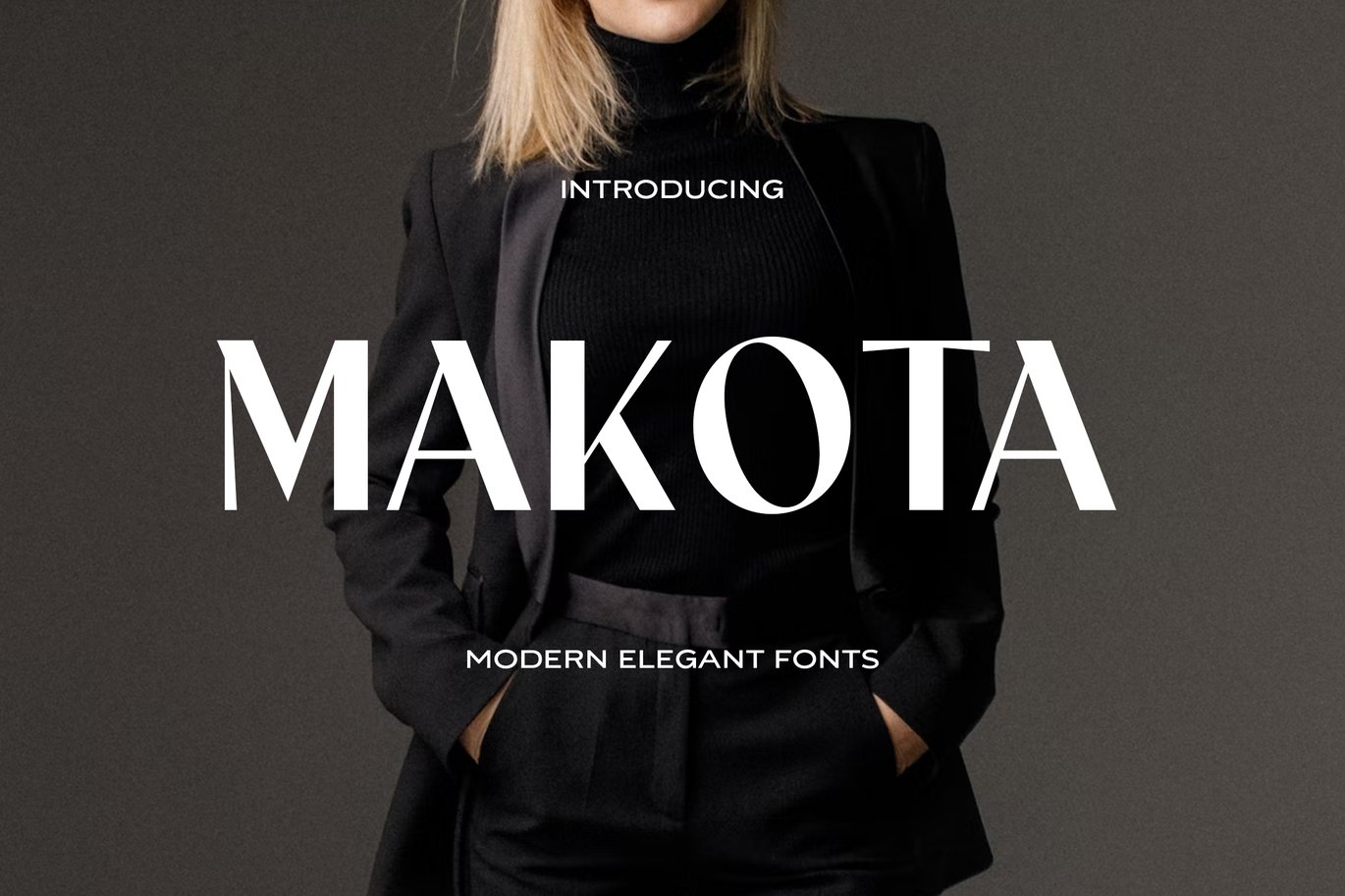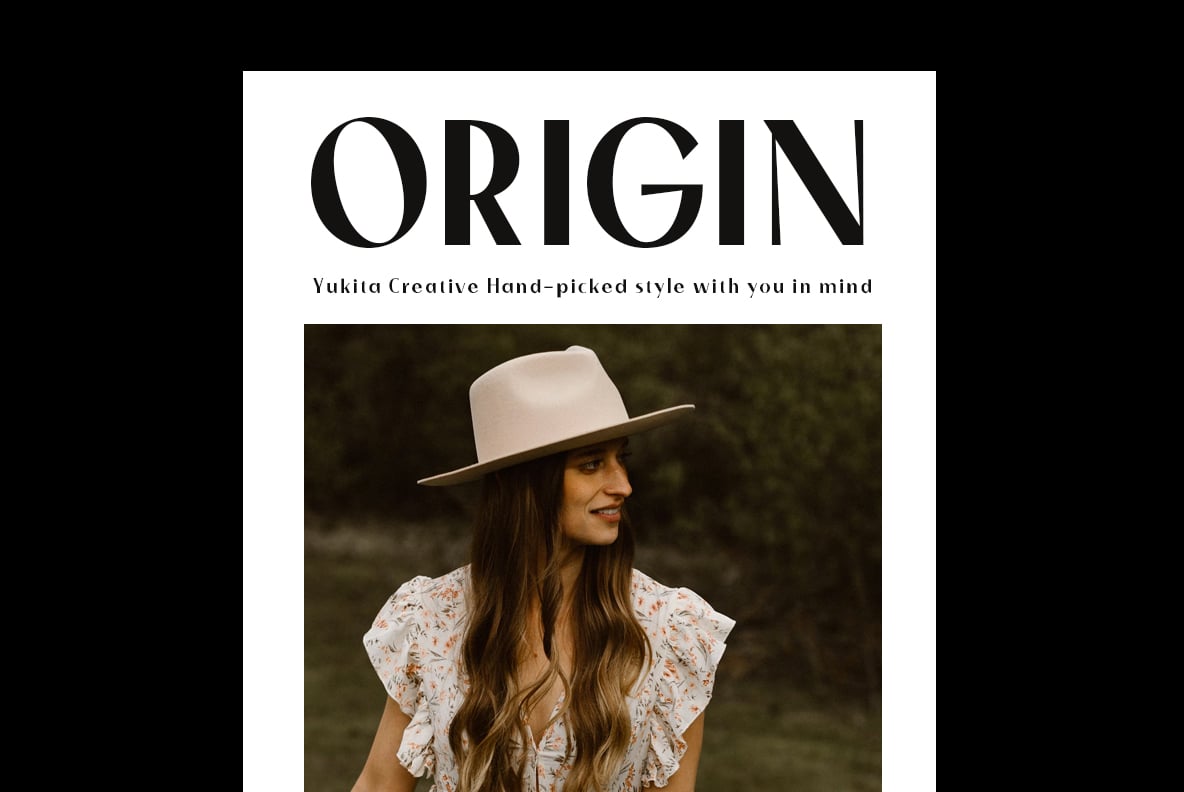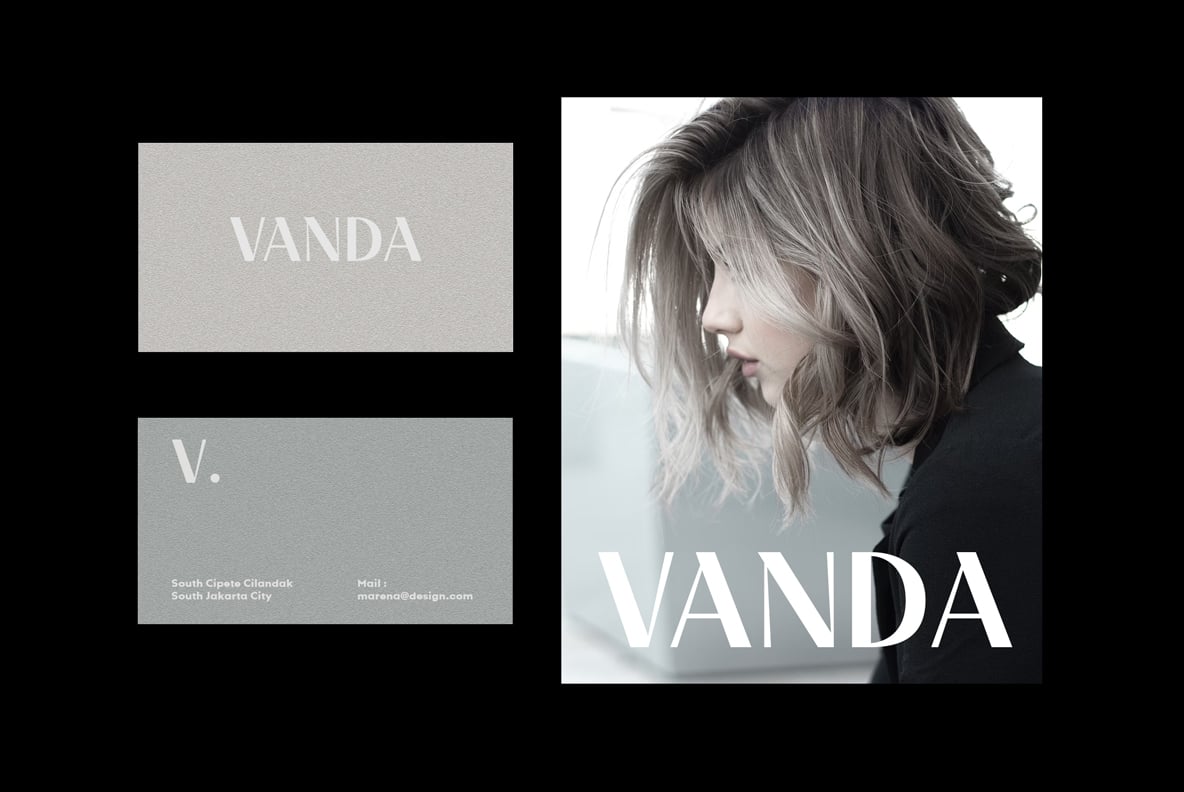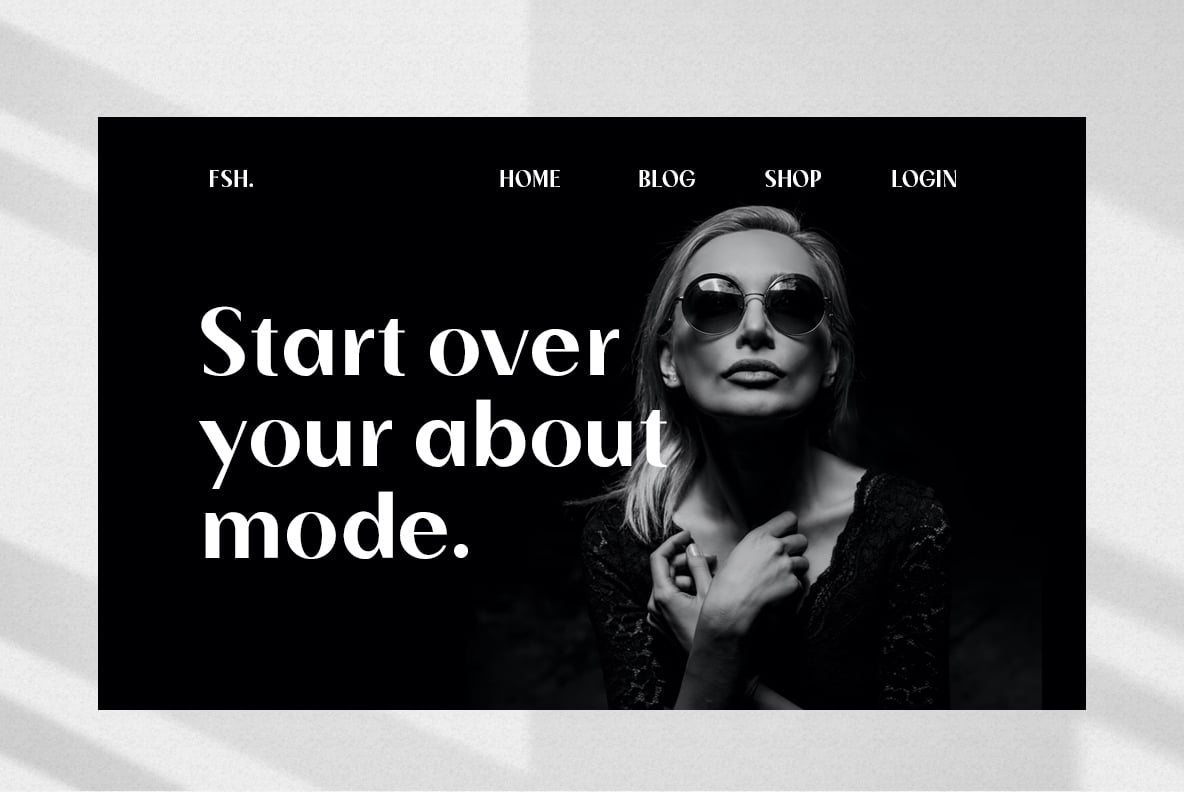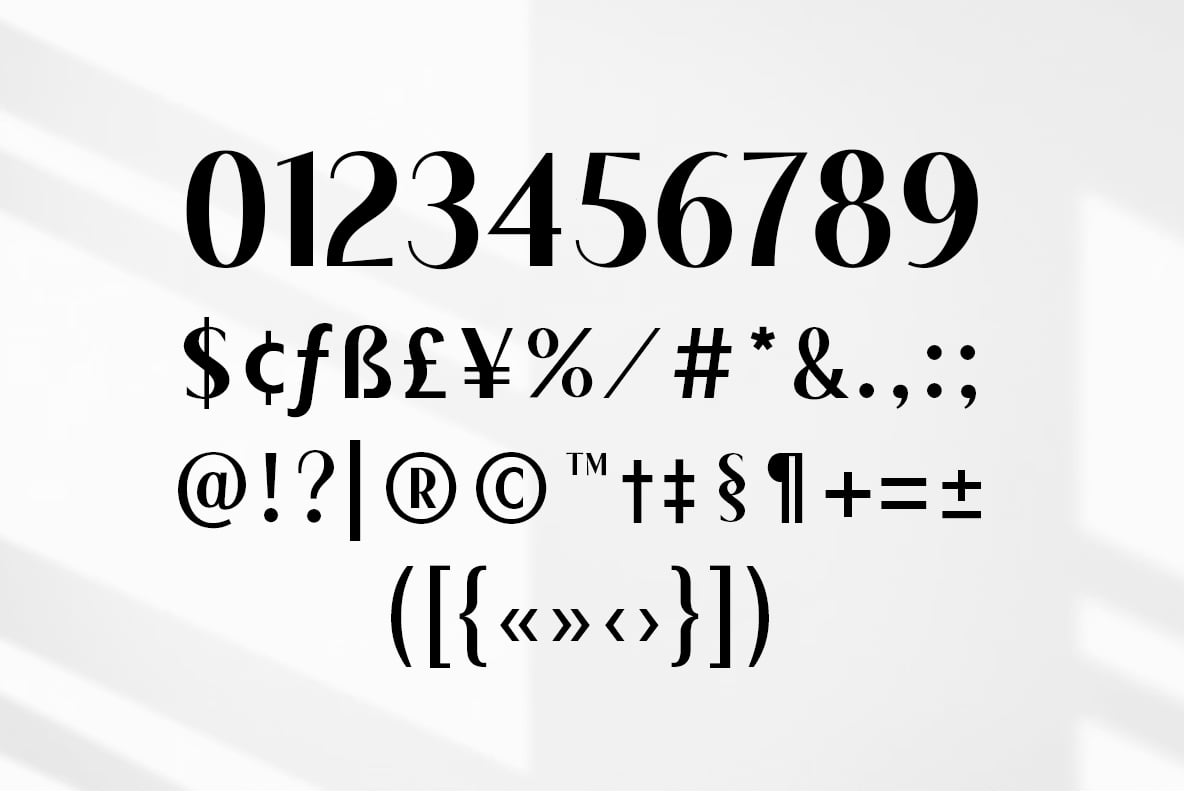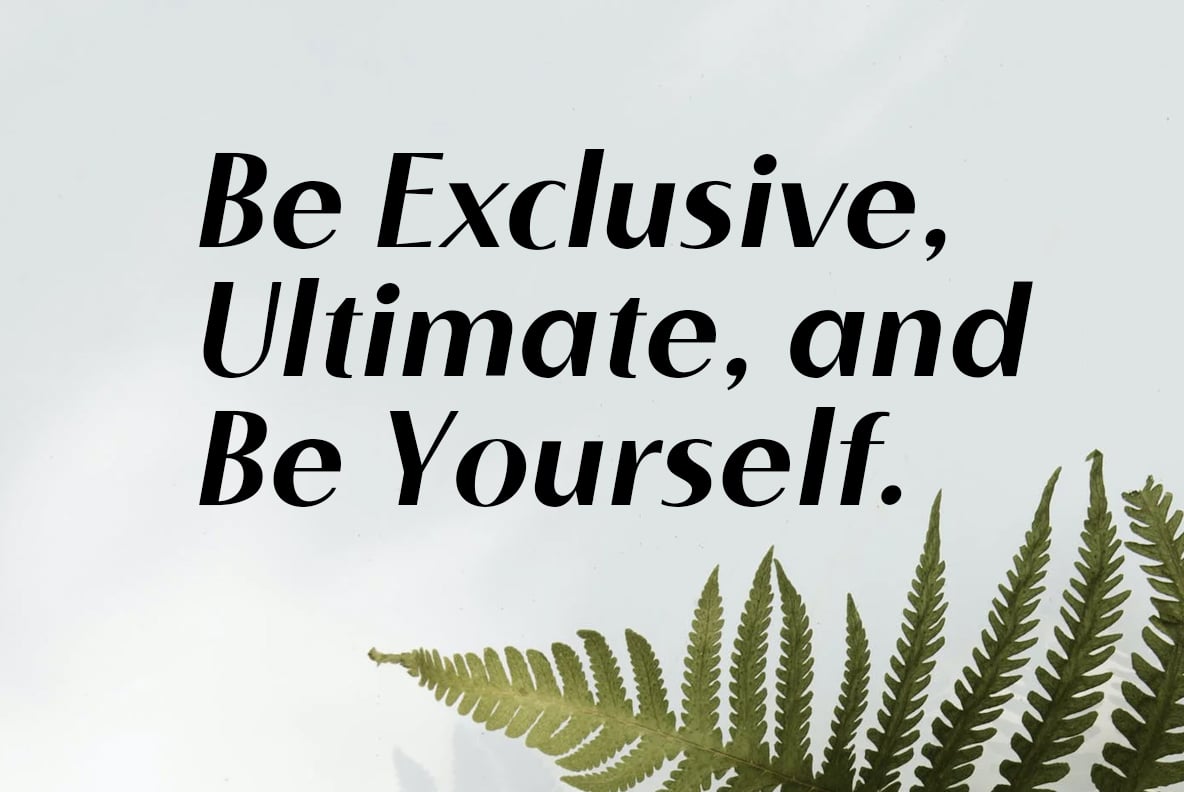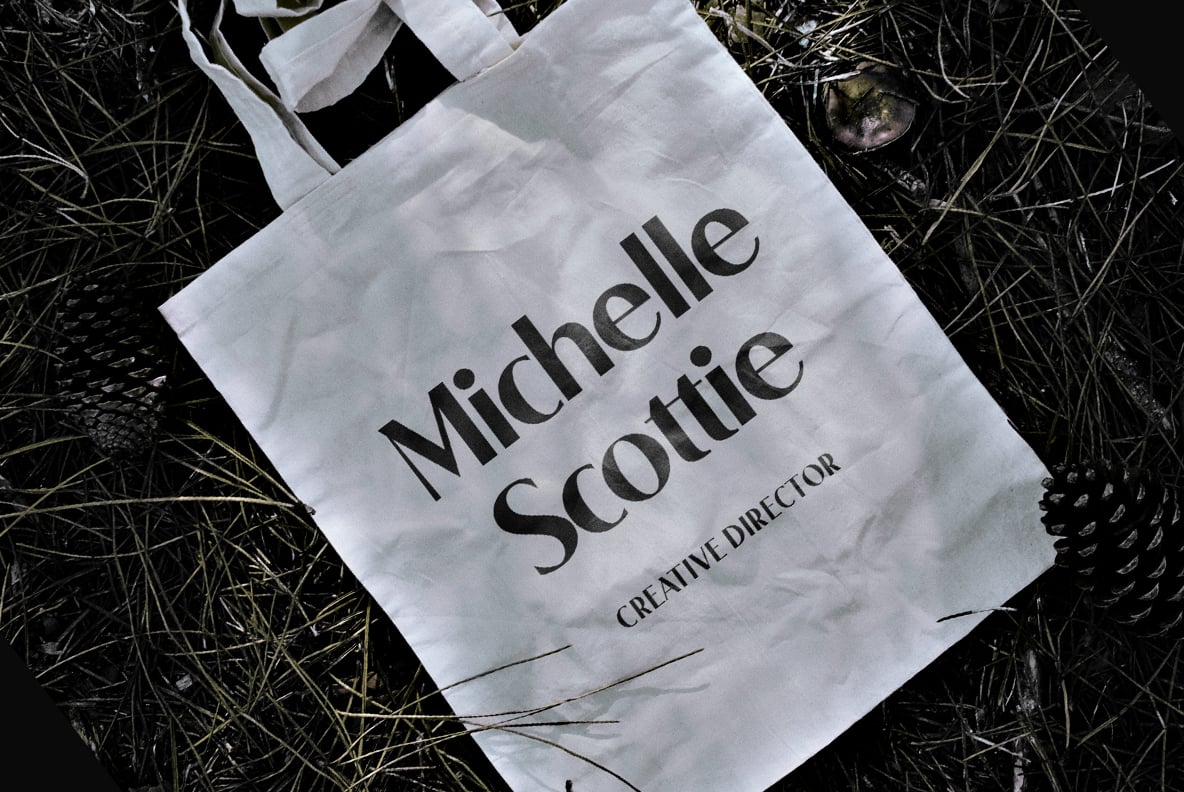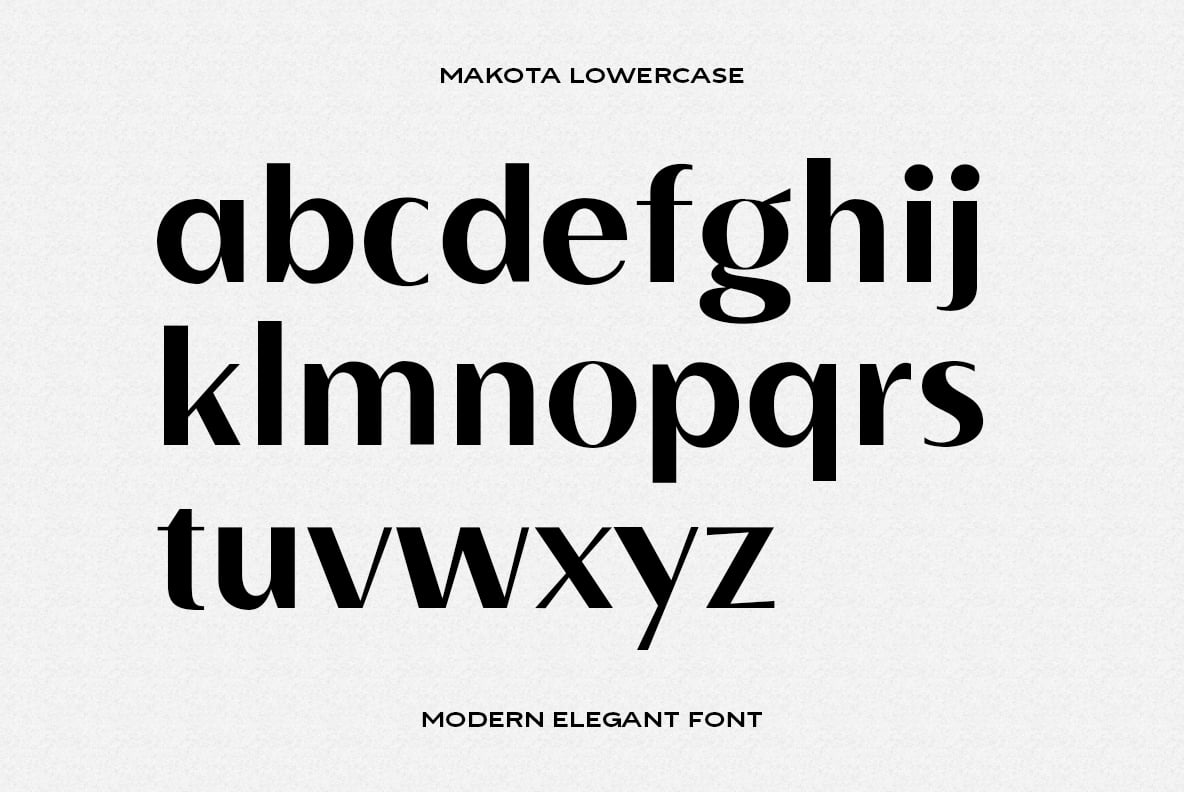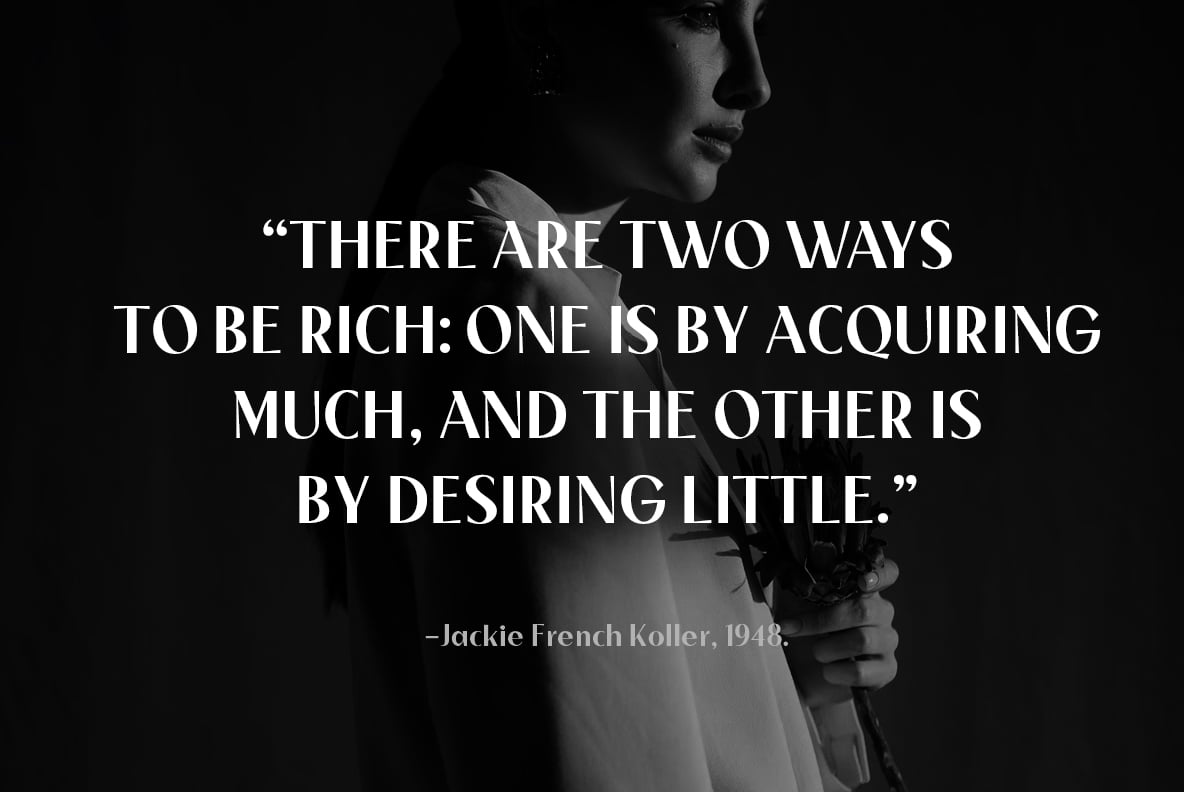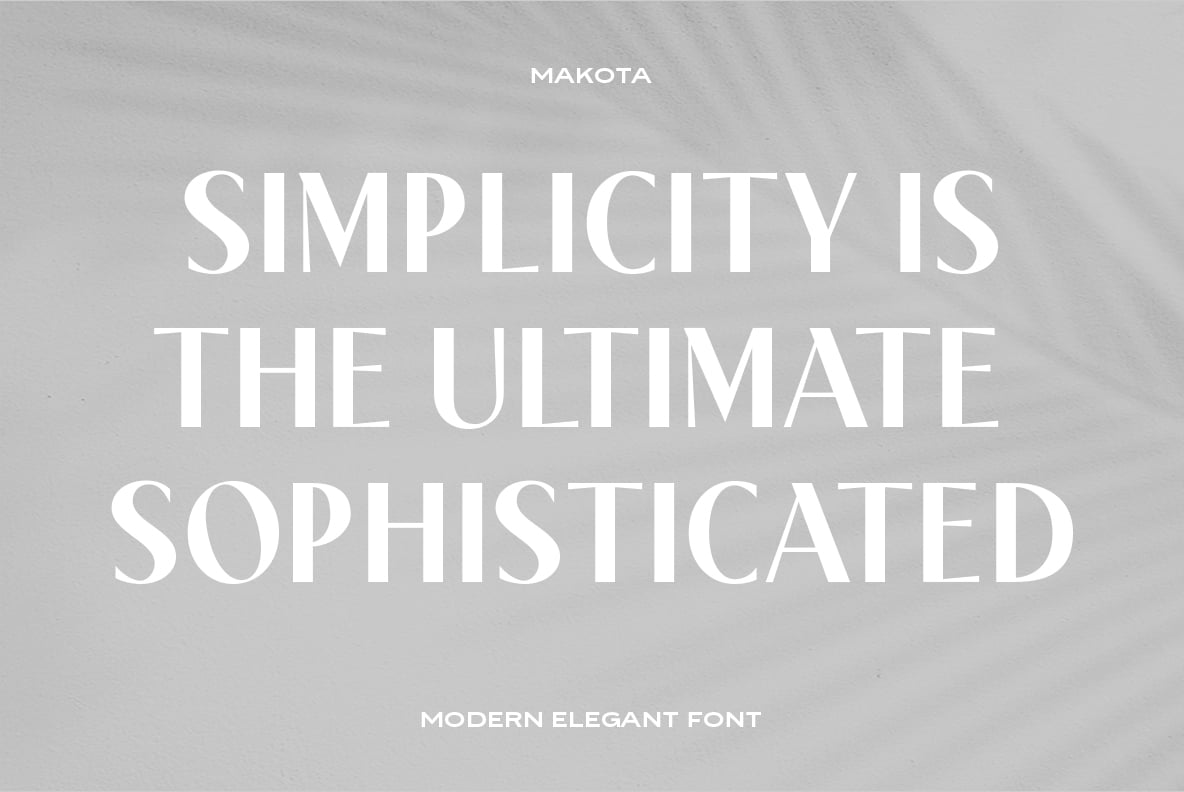
Makota Modern Font
The modern font Makota is perfect for use in luxury-related design projects. Its tall elegant typeface makes it ideal for branding and advertising, while its high legibility makes it perfect for use on websites, advertisements and other types of communication.
Supports all languages of the world (37)
Versatile Single Font.
One font for all needs.